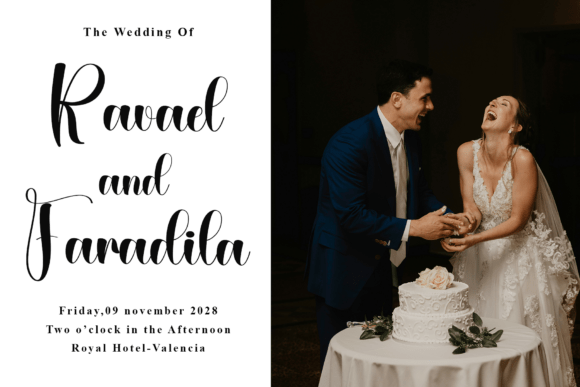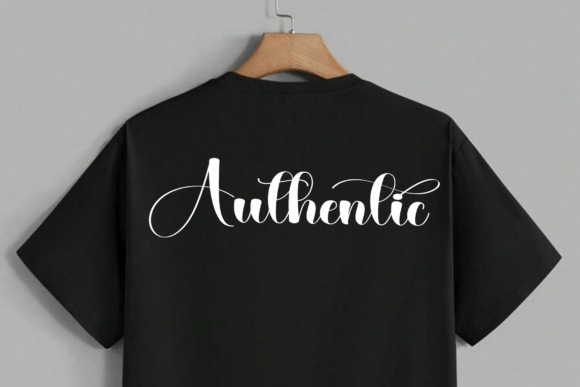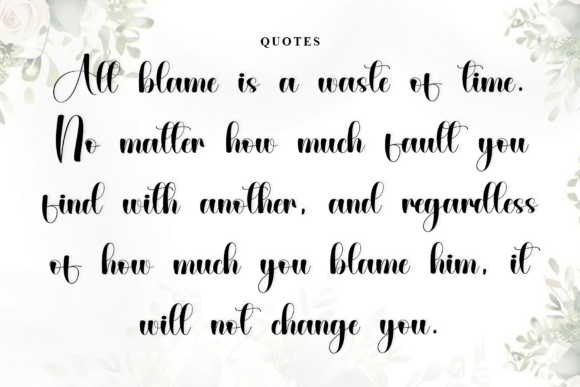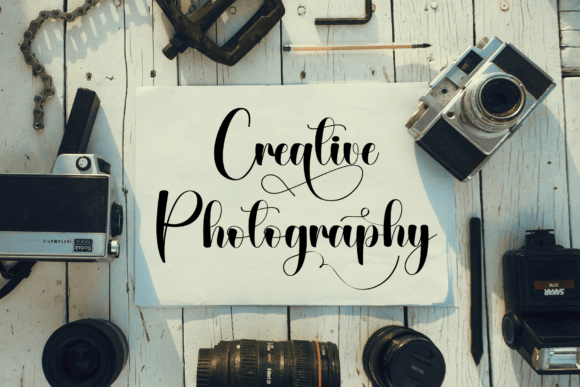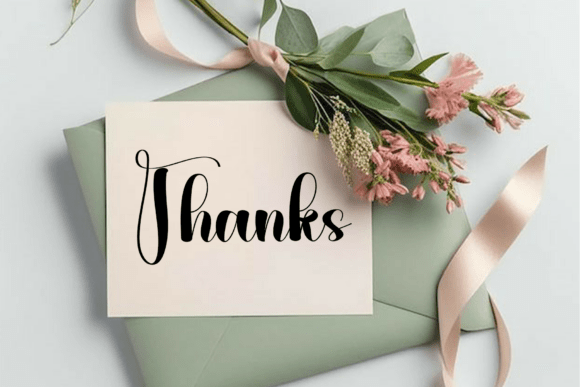
Discover the Enchanting Font: A Charming Handwritten Style for Your Design Projects
Are you looking for a font that can add a touch of warmth and personality to your design projects? Look no further than the Enchanting font, a charming handwritten style that is imbued with a sense of freshness and casual elegance. With its fluid strokes and organic lines, this font is perfect for a wide range of design applications, from branding and invitations to social media graphics and more.
The Characteristics of Enchanting Font
The Enchanting font is a beautifully crafted handwritten font that is designed to evoke a laid-back vibe. Its fluid strokes and organic lines give it a natural, effortless feel that is perfect for designs that require a touch of warmth and personality. The font is highly legible, making it suitable for use in a variety of contexts, from body text to headings and titles.
One of the key characteristics of the Enchanting font is its sense of freshness and casual elegance. The font is designed to be highly versatile, making it perfect for use in a wide range of design projects. Whether you’re creating a brand identity, designing an invitation, or crafting a social media graphic, the Enchanting font is sure to add a touch of charm and sophistication to your design.
Uses for the Enchanting Font
The Enchanting font is a highly versatile font that can be used in a wide range of design projects. Here are just a few examples of how you can use this beautiful font:
- Branding: Use the Enchanting font to create a brand identity that is warm, inviting, and full of personality. The font is perfect for logos, business cards, and other marketing materials.
- Invitations: Add a touch of elegance and sophistication to your invitations with the Enchanting font. The font is perfect for wedding invitations, birthday invitations, and other special occasions.
- Social Media Graphics: Use the Enchanting font to create social media graphics that are eye-catching and engaging. The font is perfect for Facebook posts, Instagram stories, and other social media applications.
- Packaging: Add a touch of personality to your product packaging with the Enchanting font. The font is perfect for labels, tags, and other packaging materials.
Why Choose the Enchanting Font?
There are many reasons why you might choose the Enchanting font for your design projects. Here are just a few:
- Unique and Eye-Catching: The Enchanting font is a unique and eye-catching font that is sure to stand out in any design.
- Highly Legible: The font is highly legible, making it perfect for use in a variety of contexts, from body text to headings and titles.
- Highly Versatile: The Enchanting font is a highly versatile font that can be used in a wide range of design projects.
Tips for Using the Enchanting Font
Here are a few tips for using the Enchanting font in your design projects:
- Use it Sparingly: While the Enchanting font is a beautiful font, it can be overwhelming if used too much. Use it sparingly to add a touch of elegance and sophistication to your design.
- Pair it with Other Fonts: The Enchanting font pairs well with other fonts, such as sans-serif fonts and script fonts. Experiment with different font combinations to find the one that works best for your design.
- Experiment with Colors: The Enchanting font looks great in a variety of colors, from bright and bold to soft and pastel. Experiment with different colors to find the one that works best for your design.
In conclusion, the Enchanting font is a charming handwritten font that is perfect for designers and crafters who want to add a touch of warmth and personality to their design projects. With its fluid strokes and organic lines, this font is sure to evoke a laid-back vibe that is perfect for a wide range of design applications. Whether you’re creating a brand identity, designing an invitation, or crafting a social media graphic, the Enchanting font is sure to be a great choice.